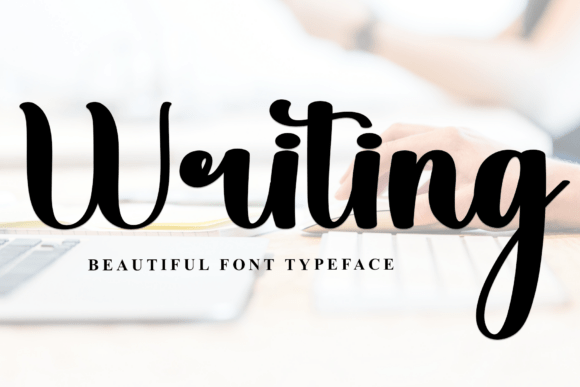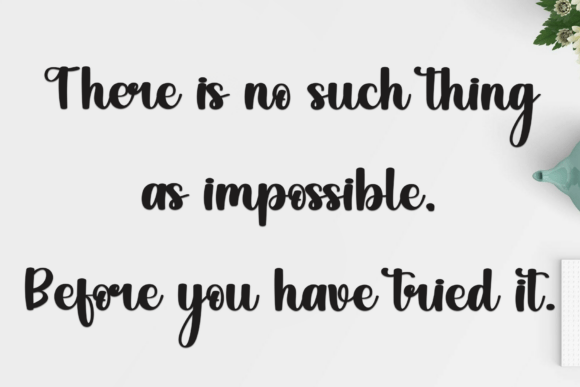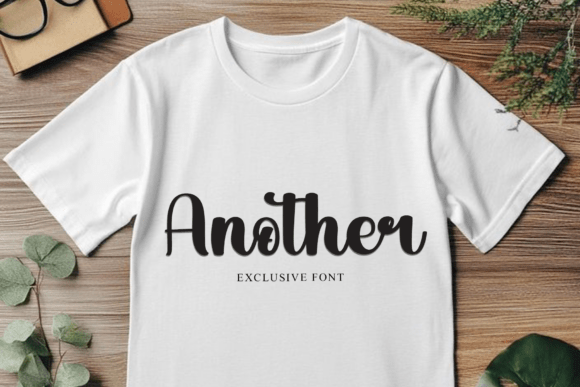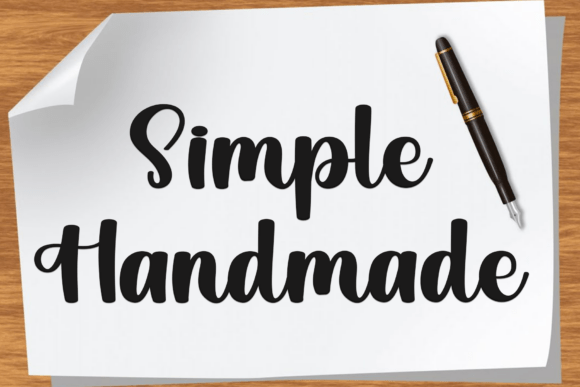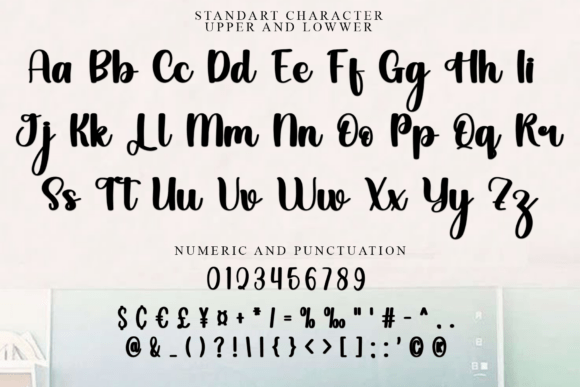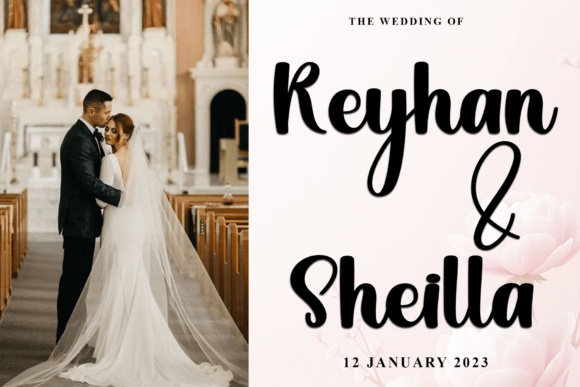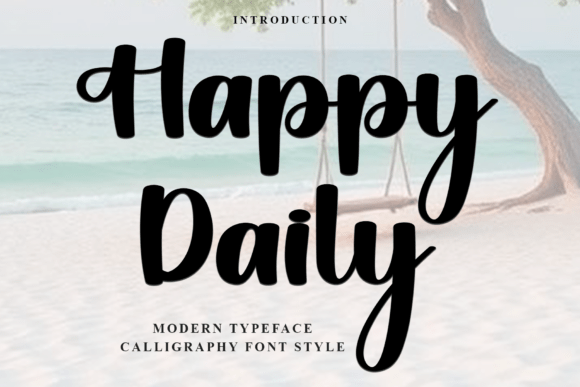
Introducing Happy Daily Font: The Ultimate Holiday Typeface
The holiday season is upon us, and what better way to get into the spirit than with a festive and merry typeface? Look no further than Happy Daily Font, a decorative and whimsical font that’s perfect for adding a touch of enchantment to your designs. In this article, we’ll dive into the world of Happy Daily Font and explore its features, uses, and benefits for designers and crafters.
Happy Daily Font is a beautifully crafted typeface that’s designed to capture the essence of the holiday season. With its decorative elements and whimsical flair, it’s the perfect addition to any holiday-themed project. Whether you’re designing greeting cards, gift tags, or festive posters, Happy Daily Font is sure to bring a cheerful and nostalgic ambiance to your words.
Happy Daily Font is a versatile typeface that’s perfect for designers and crafters alike. Its decorative elements and whimsical flair make it ideal for a wide range of projects, including:
- Greeting cards: Add a personal touch to your holiday greeting cards with Happy Daily Font.
- Gift tags: Make your gifts stand out with beautifully designed gift tags featuring Happy Daily Font.
- Holiday-themed projects: From festive posters to holiday-themed social media graphics, Happy Daily Font is the perfect choice.
Bringing a Cheerful and Nostalgic Ambiance to Your Words
Happy Daily Font is more than just a typeface – it’s an experience. With its festive and merry design, it’s sure to bring a cheerful and nostalgic ambiance to your words. Whether you’re designing for the holiday season or just want to add a touch of whimsy to your projects, Happy Daily Font is the perfect choice.
Tips and Tricks for Using Happy Daily Font
To get the most out of Happy Daily Font, here are a few tips and tricks to keep in mind:
- Experiment with different font sizes and colors to add depth and interest to your designs.
- Mix and match glyphs and ligatures to create unique and eye-catching designs.
- Use Happy Daily Font in combination with other fonts to create a unique and eye-catching design.